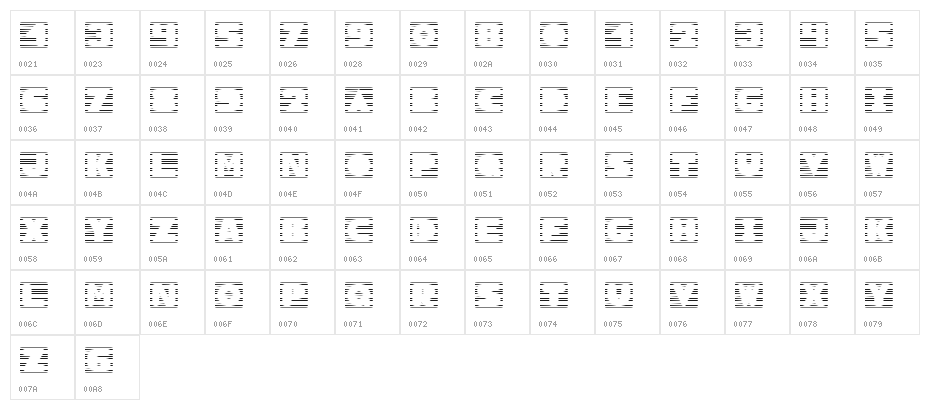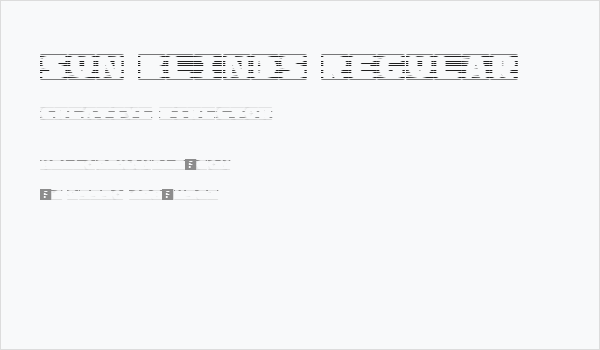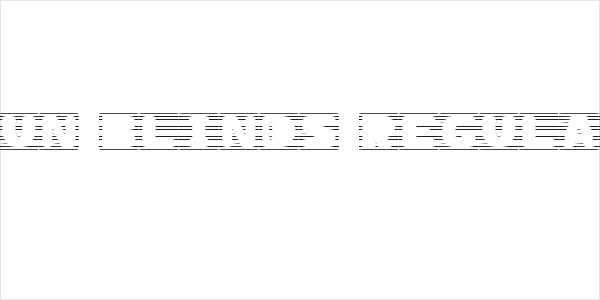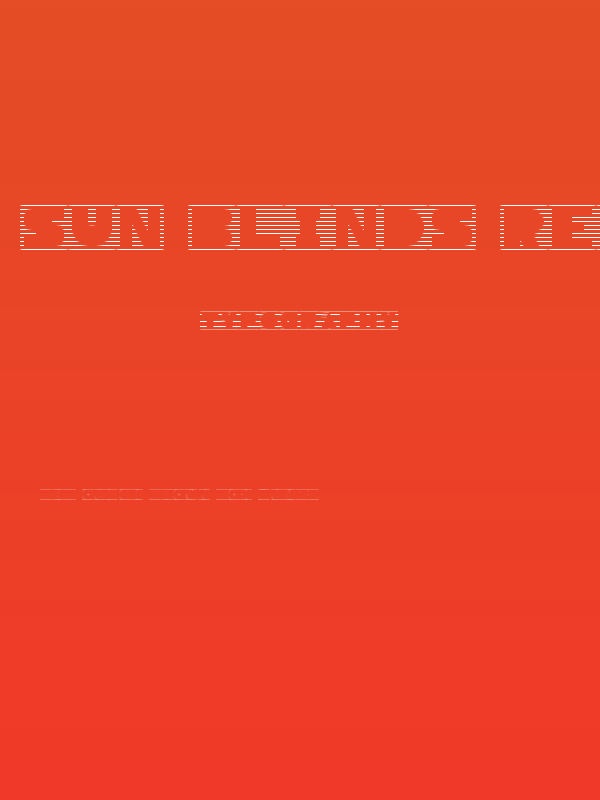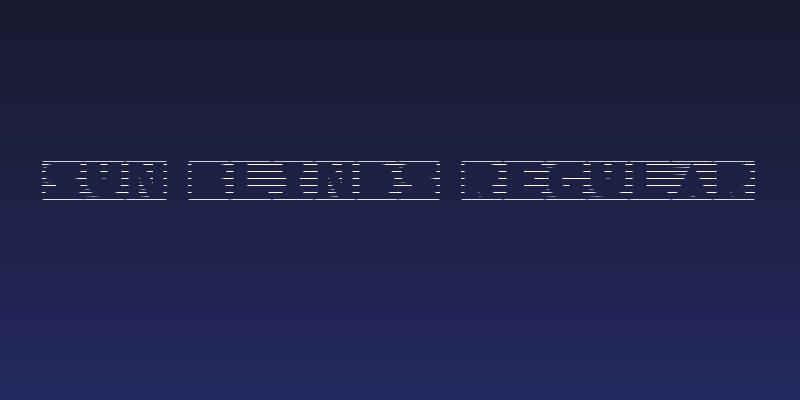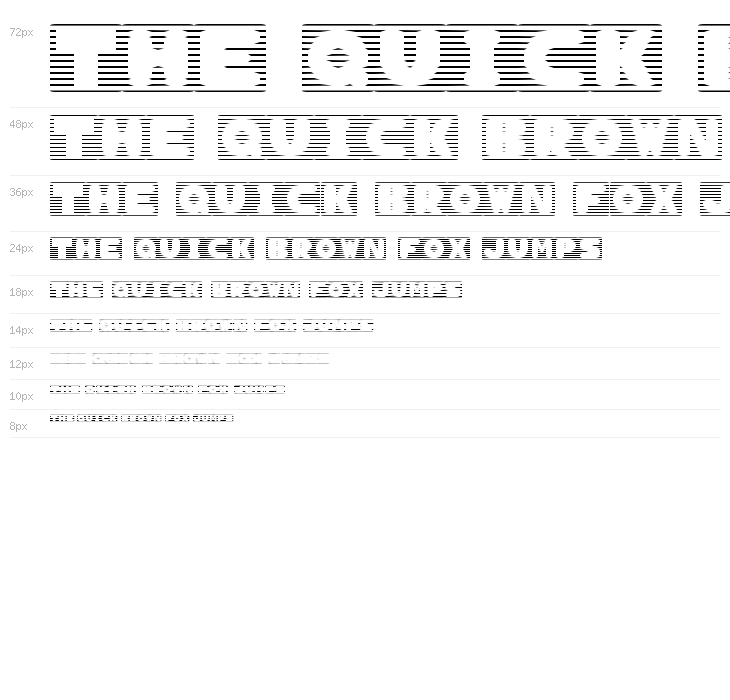
Sun Blinds Regular Font
Sun Blinds Regular Description
This font features a unique design with horizontal lines cutting through each character, creating a striking visual effect reminiscent of blinds or shutters. The characters are bold and uppercase, with a modern and decorative style that stands out. The horizontal lines add a sense of movement and texture, making it ideal for creative and eye-catching designs. The font maintains a consistent width and spacing, ensuring readability despite its decorative nature. It is perfect for projects that require a bold statement, such as posters, headlines, or branding materials.
MrtheNoronha - Daniel Noronha
| Proposed Projects | Ideal for posters, headlines, branding, and creative design projects. |